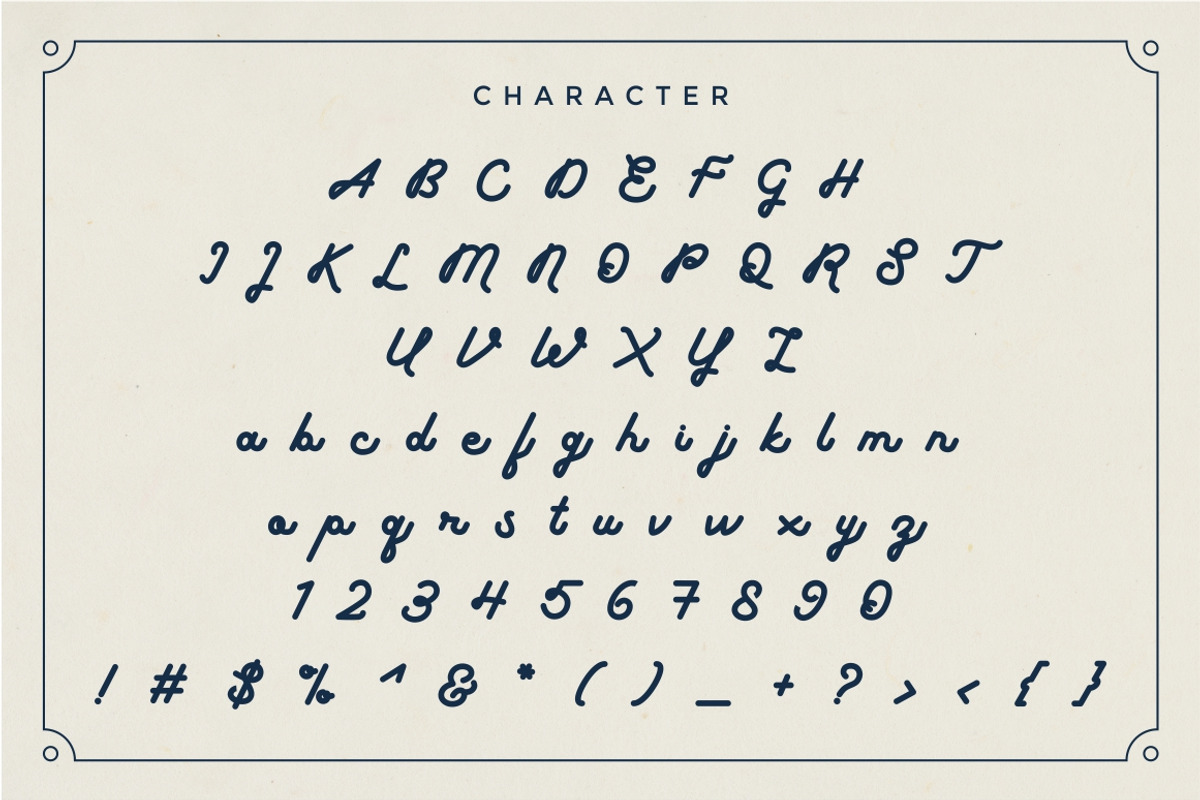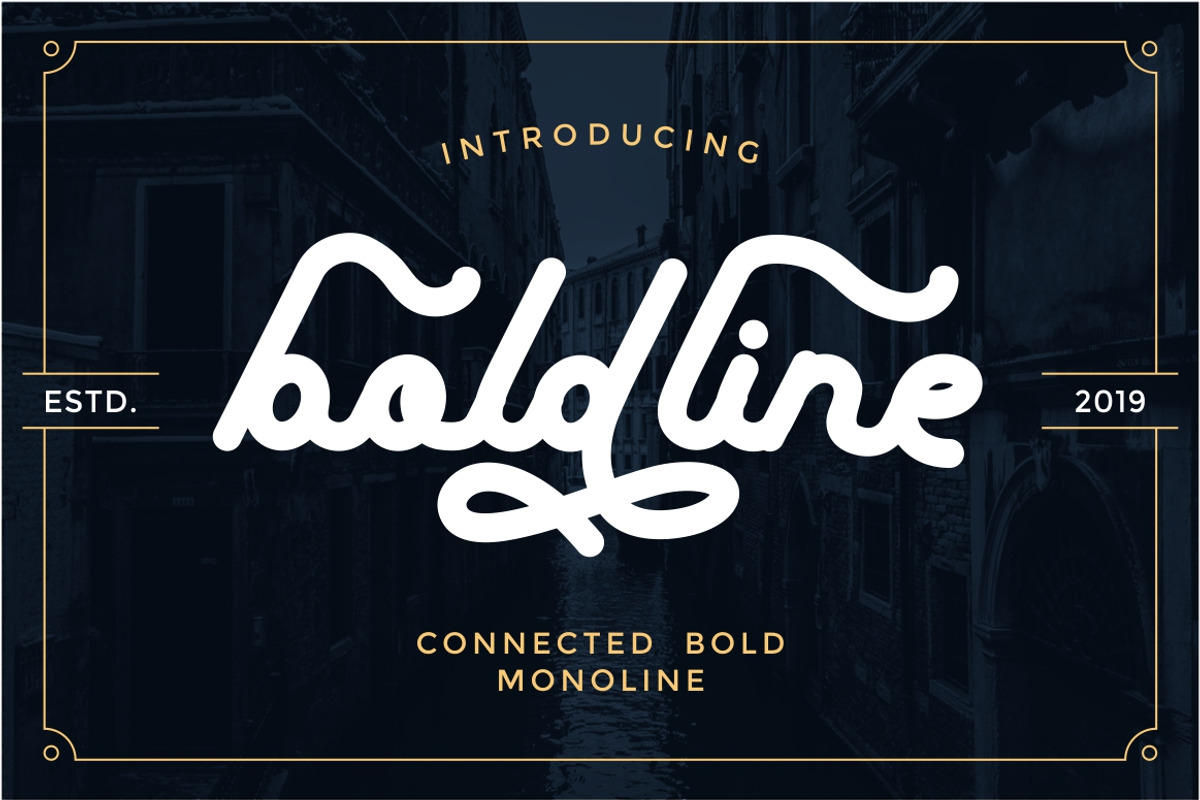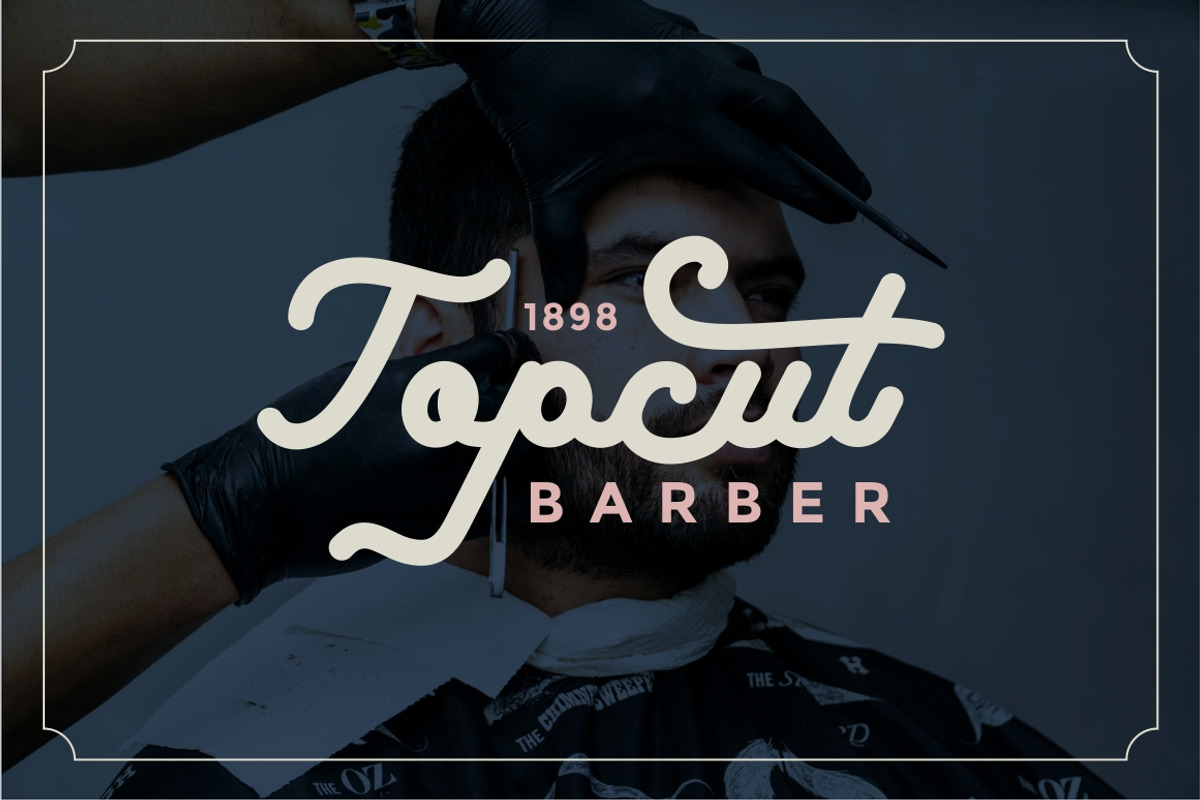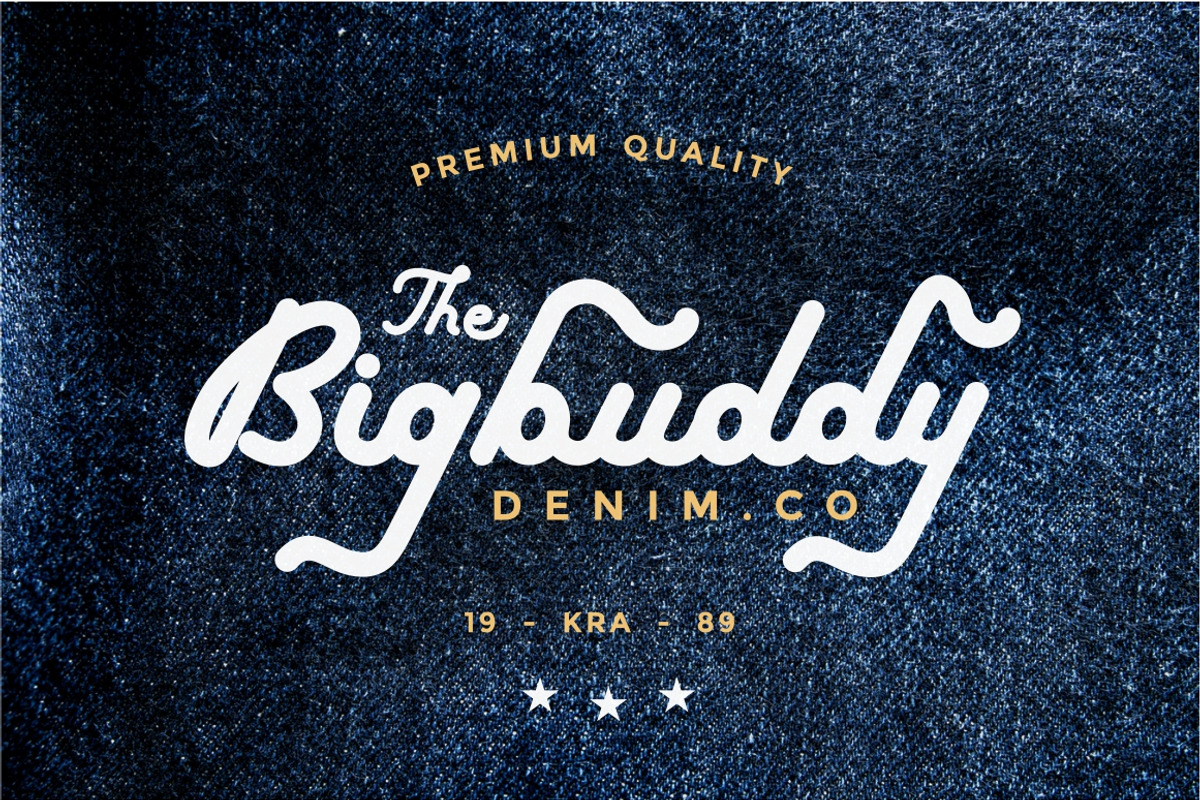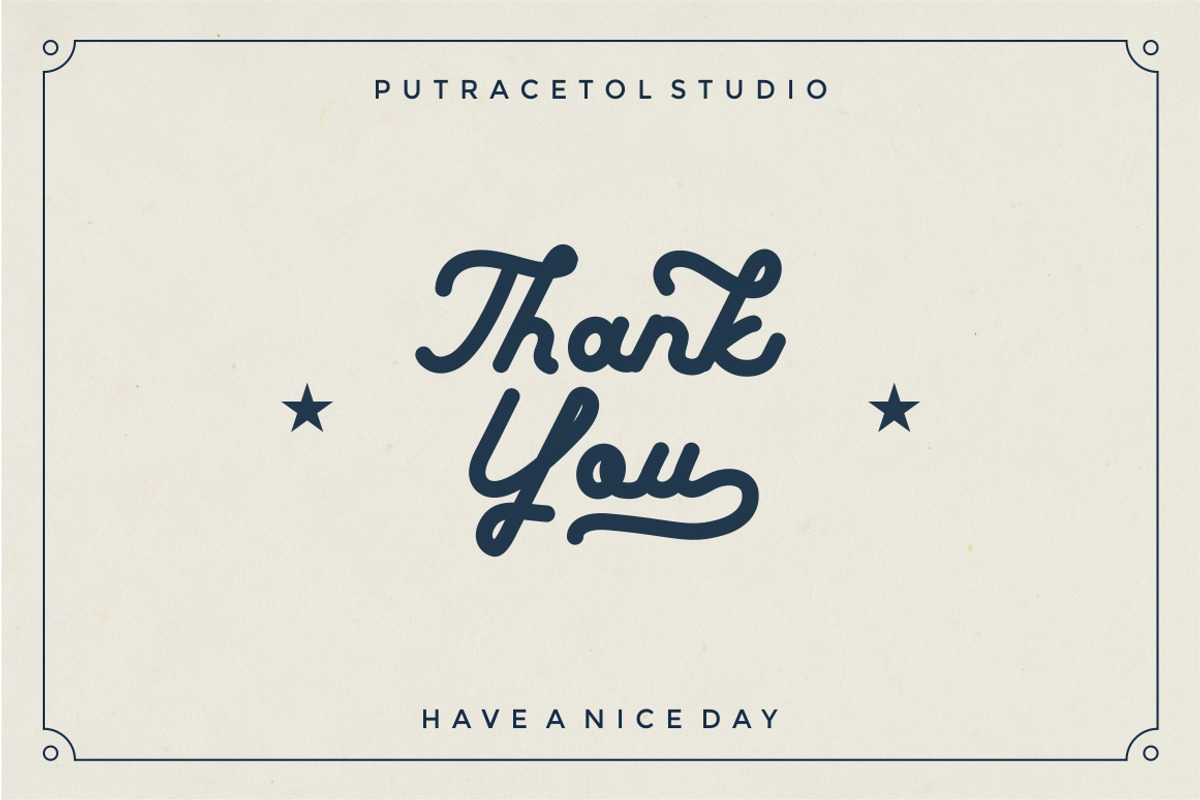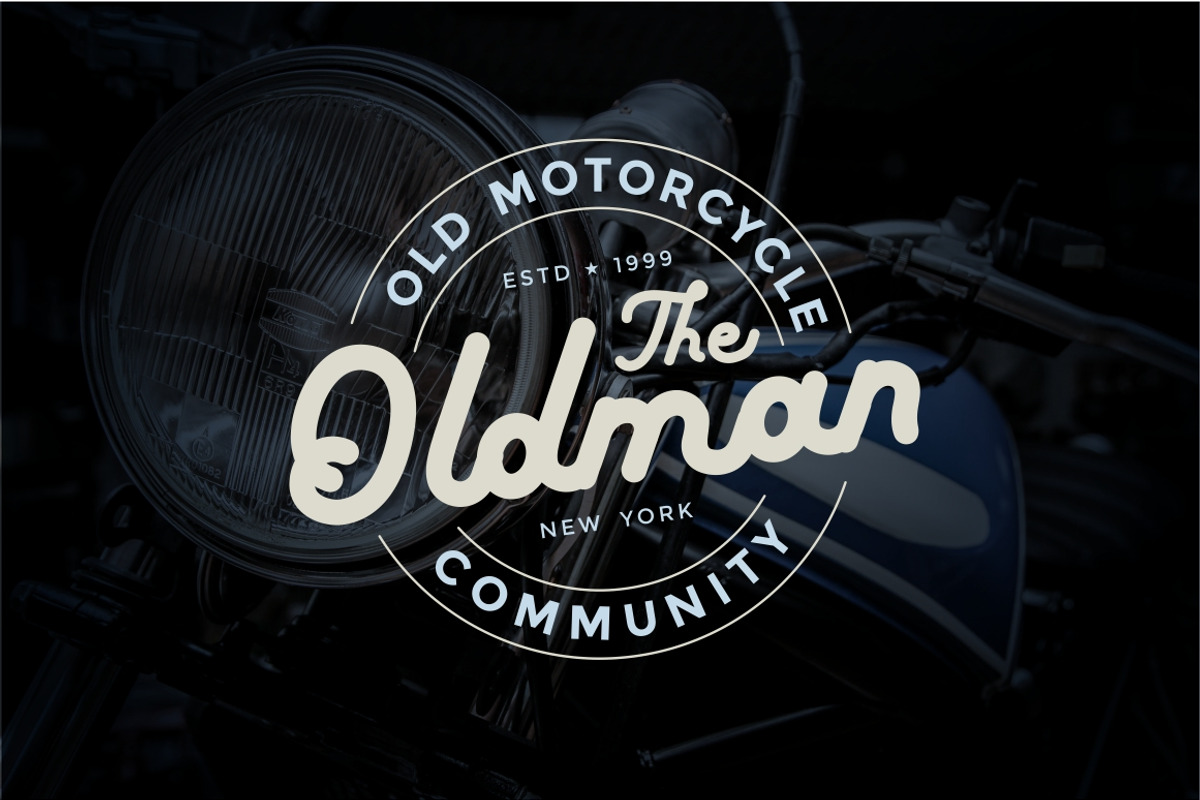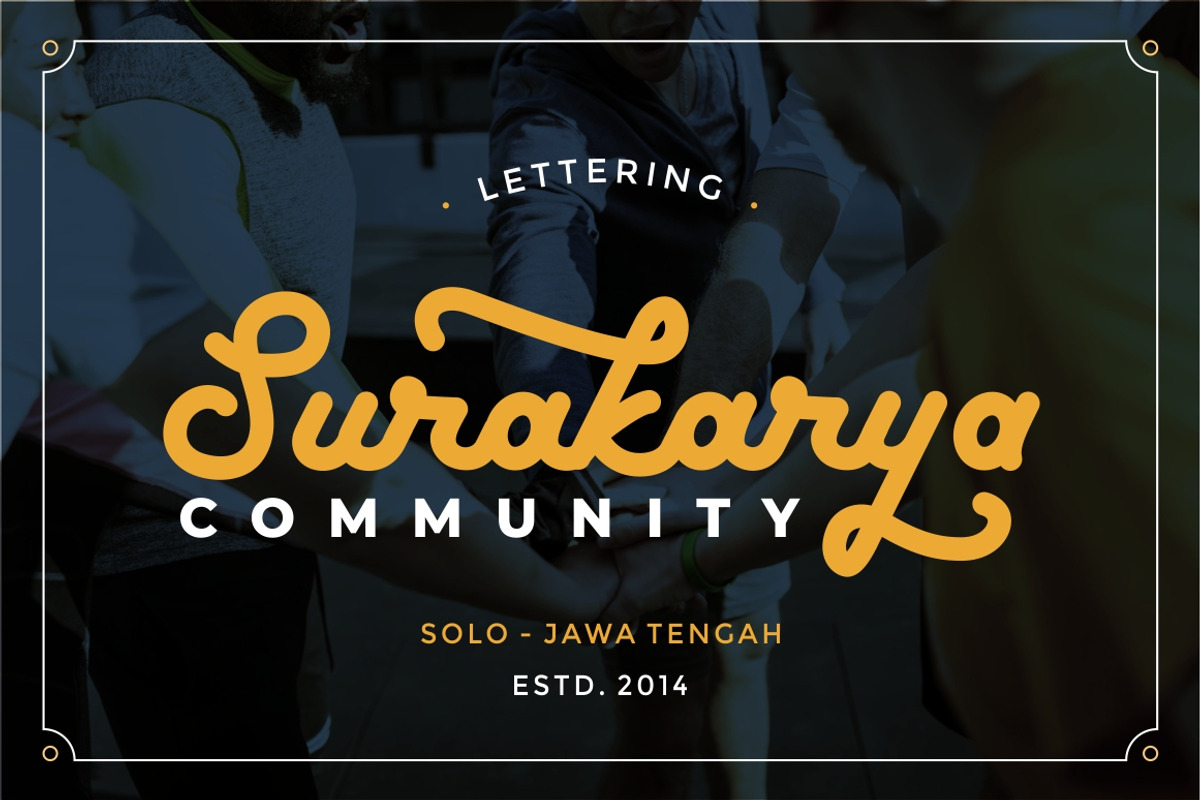
boldline - monoline bold typeface
Introducing, Boldline ! a connected bold monoline typeface. Boldline is strong, classy and bold. You can use this font for making an awesome logo, branding, letterhead, invitations,quote, print, card clothing brand, vintage looks,and so much more!. Come with open type feature with a lot of alternates, its help you to make great lettering. This font is also support multi language. To access the alternate glyphs, you need a program that supports OpenType features such as Adobe Illustrator CS, Adobe Photoshop CC, Adobe Indesign and Corel Draw.
Multilanguage Support.
- Come with open type feature with a lot of alternates, its help you to make great lettering.
boldline - monoline bold typeface by PutraCetol Studio fits naturally into Branding, posters, packaging, typography.